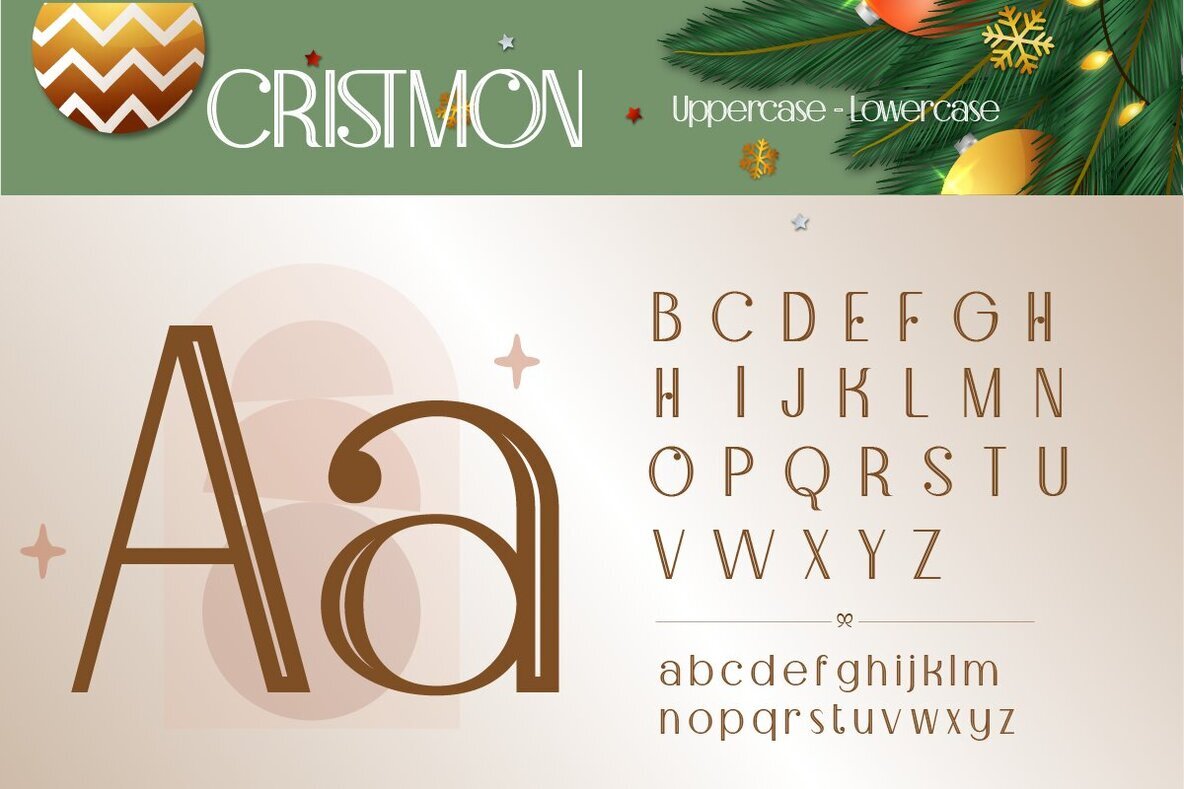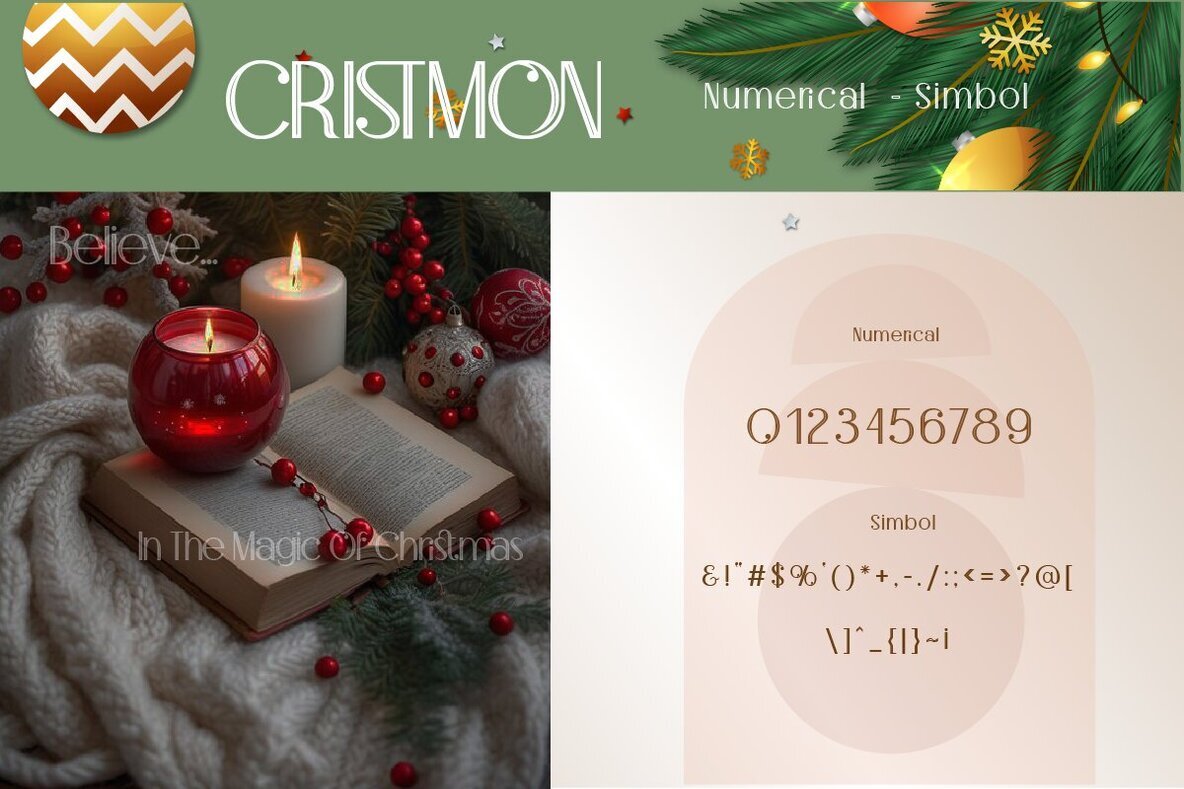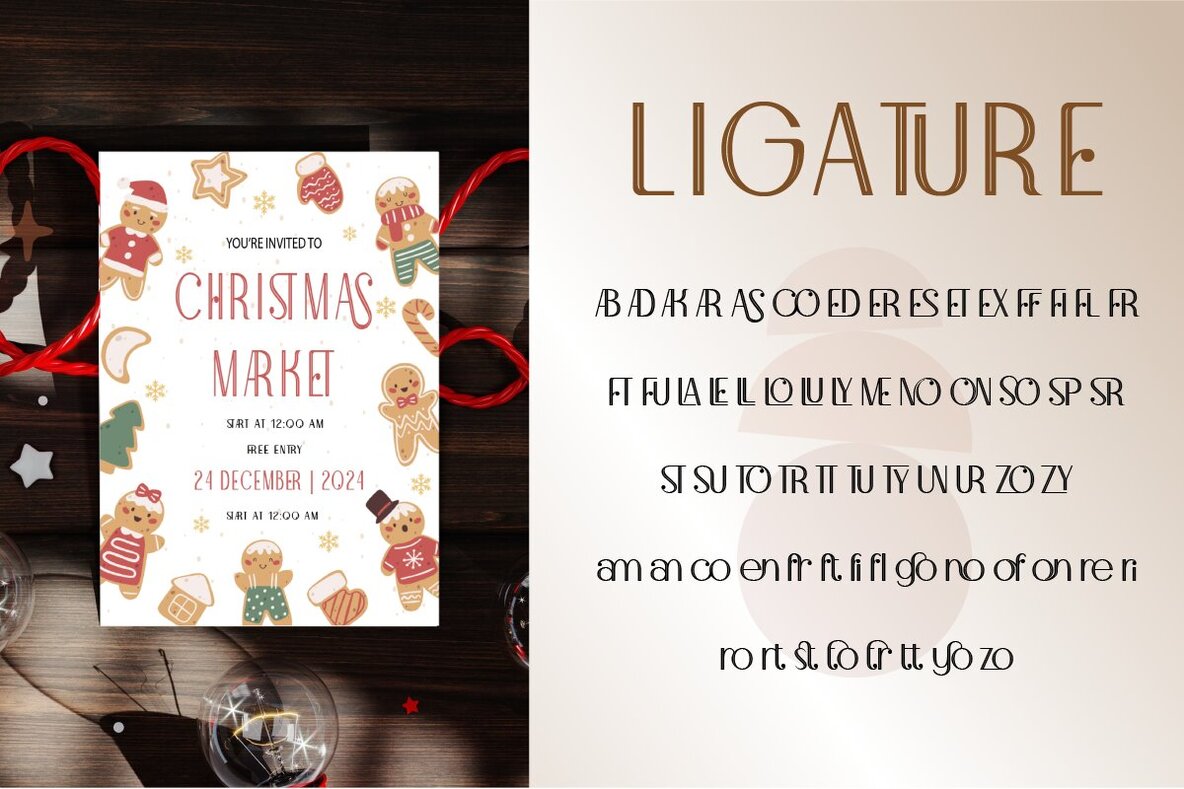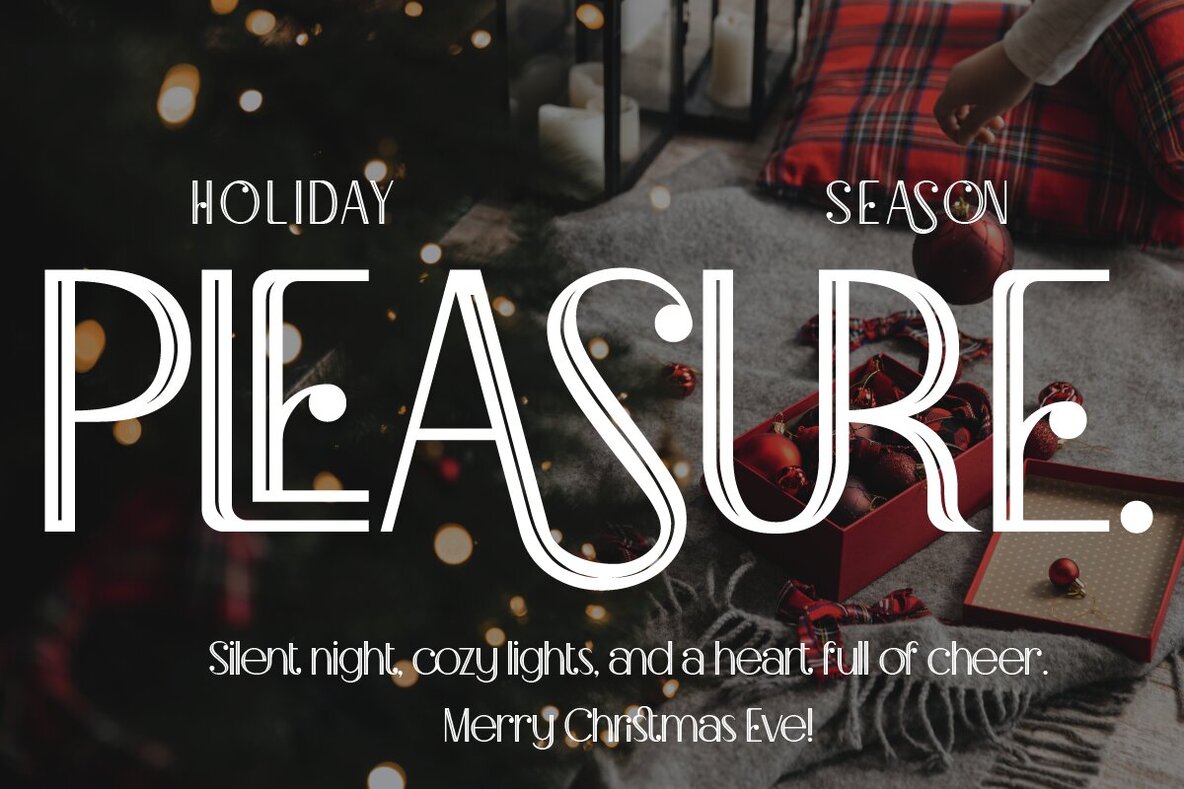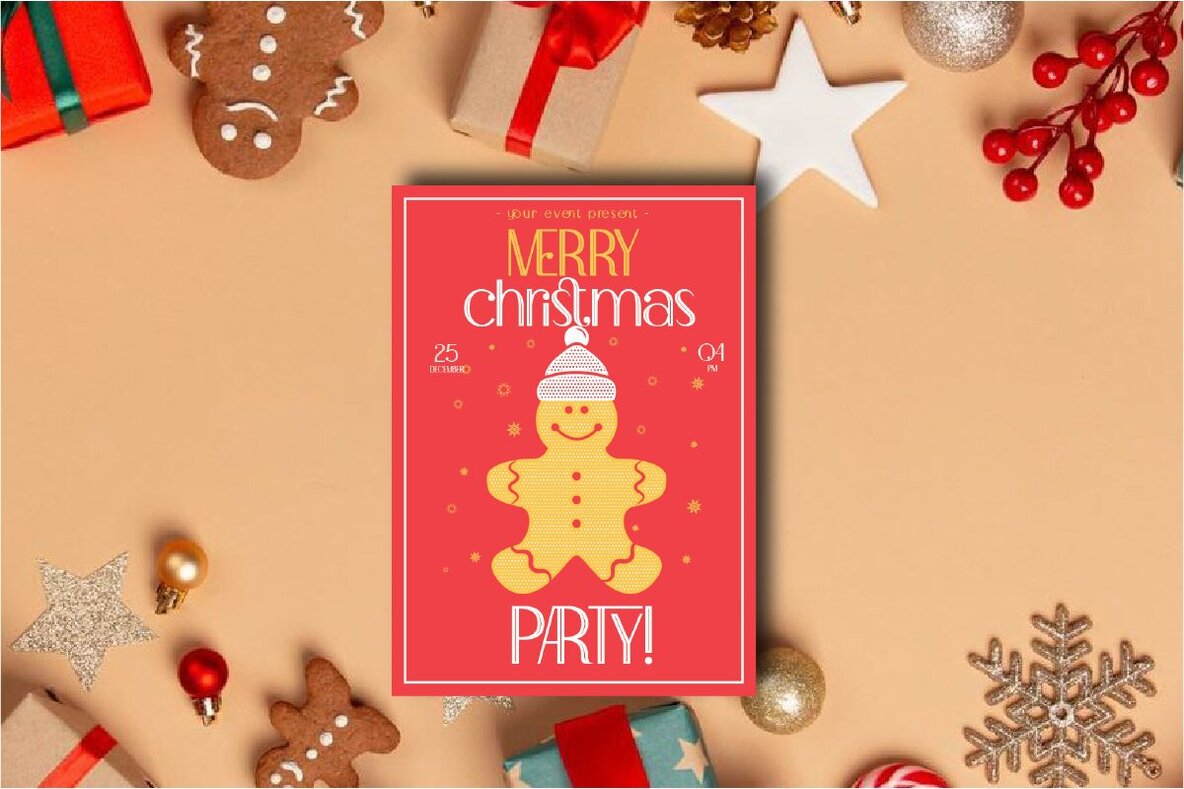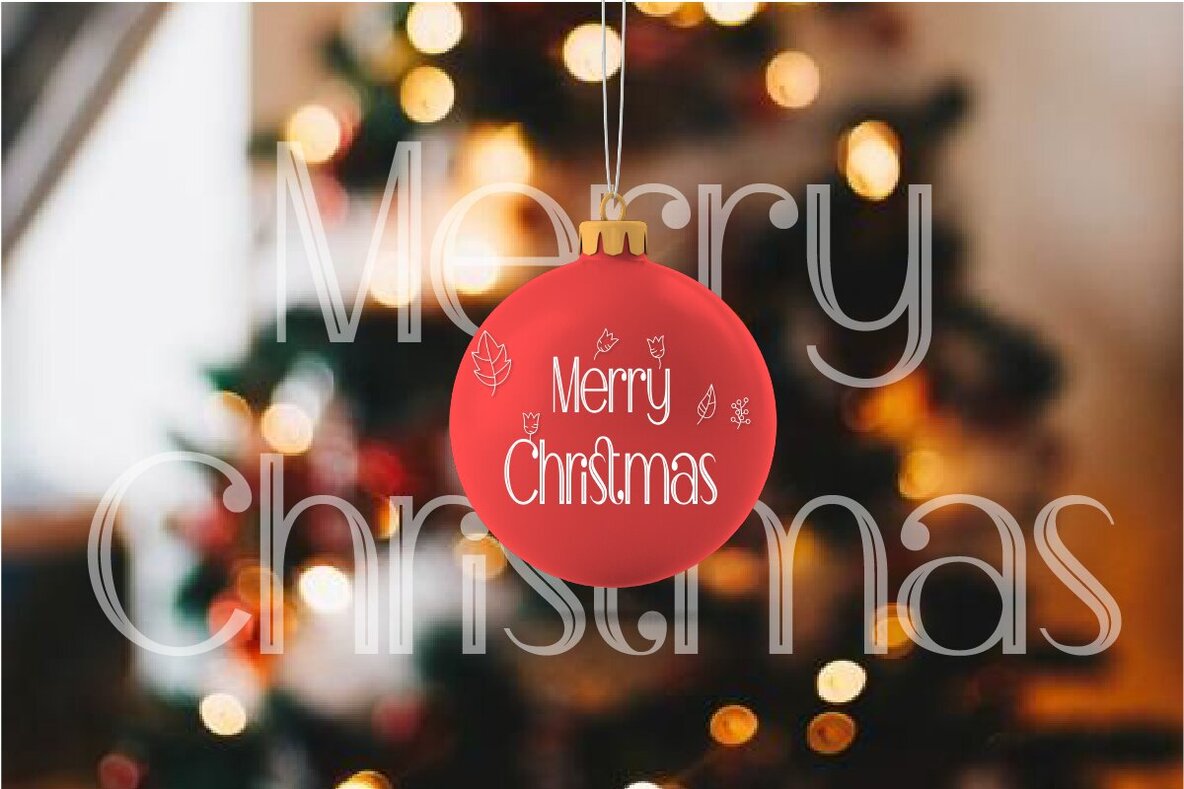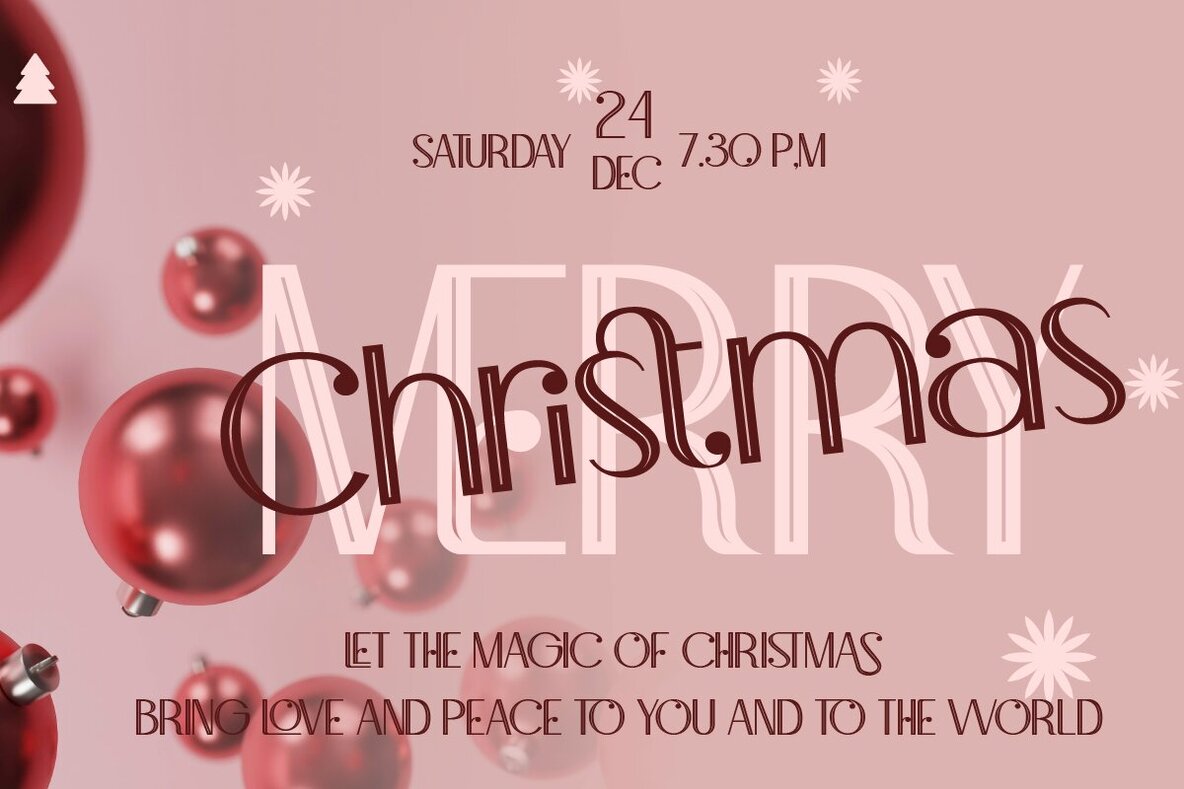
Cristmon Font
Cristmon Regular
Cristmon Oblique
Cristmon is a playful and modern font designed to infuse your designs with the joyous spirit of Christmas. Perfect for a variety of holiday projects, this font brings a cheerful and simple aesthetic to everything from holiday cards and gift tags to social media posts. Its unique style ensures that your creations not only capture attention but also shine with festive charm.
Ideal for branding, posters, invitations, greeting cards, and product tags, Cristmon offers versatility with its comprehensive character set. The font includes uppercase and lowercase letters, numbers, punctuation, ligatures, and multilingual support. With its thoughtfully crafted characters, Cristmon is a delightful choice for any designer looking to brighten up holiday-related projects.